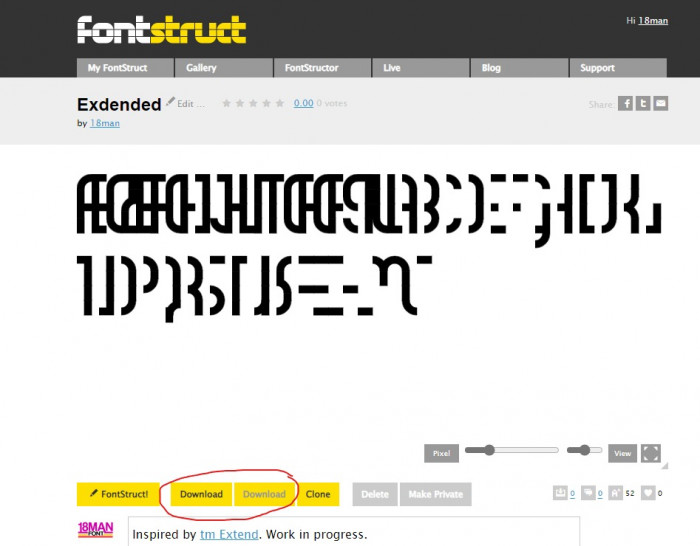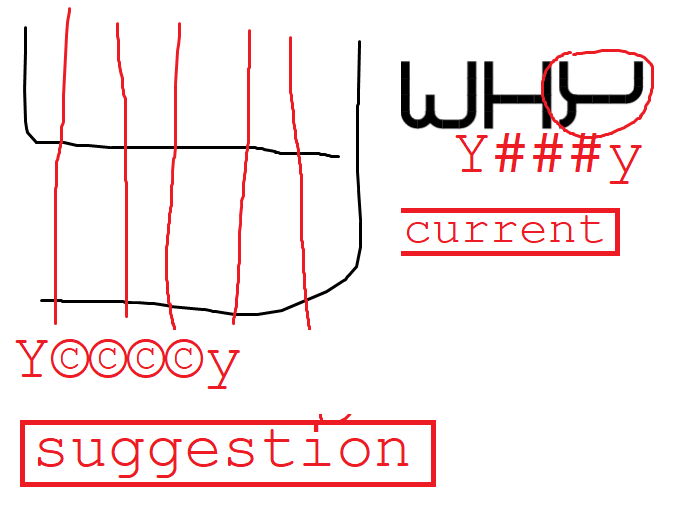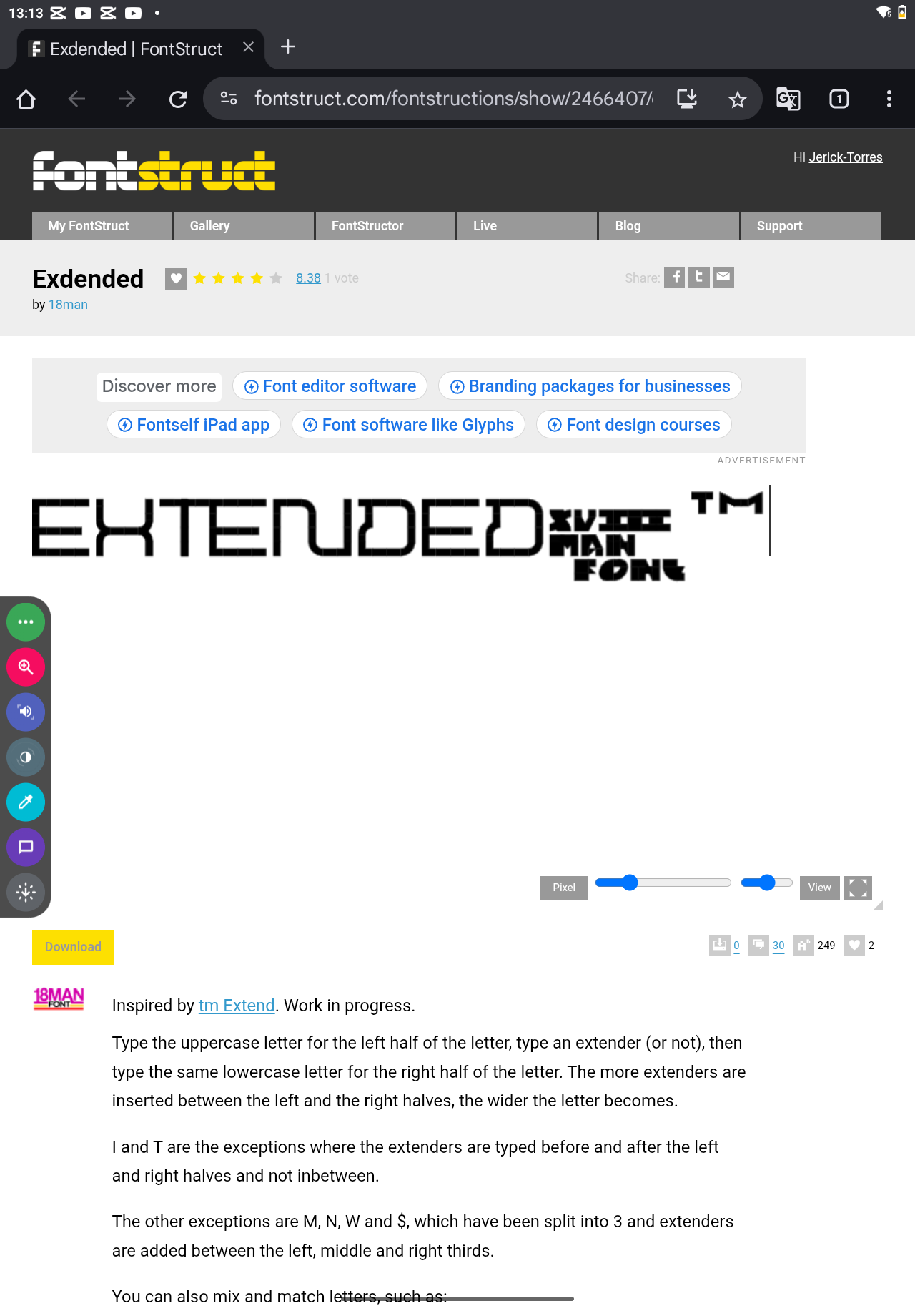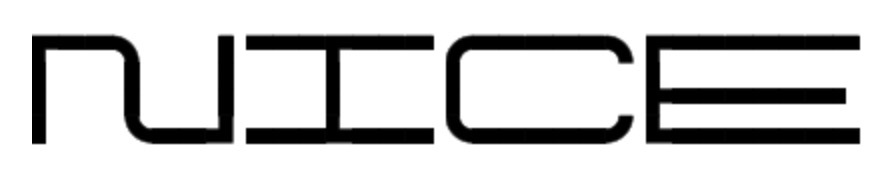
• Inspired by tm Extend. Work in progress.
Type the uppercase letter for the left half of the letter, type an extender (or not), then type the same lowercase letter for the right half of the letter. The more extenders are inserted between the left and the right halves, the wider the letter becomes.
I and T are the exceptions where the extenders are typed before and after the left and right halves and not inbetween.
The other exceptions are M, N, W and $, which have been split into 3 and extenders are added between the left, middle and right thirds.
You can also mix and match letters, such as:
F@a, U$v, O`o.
I had to use kerning to get the I and T to behave correctly.
Currency:
€¢, £¥, S§s.
Numbers:
0o, 1L , 2=, 3b, 4h, 5s, 6/, 7+, 8b, 9\.
Extend:
A@@a, Ä@@ä, B__b, C**c, Ç**ç, D**d, E__e, Ë__ë, Ə__ə, F@@f, G**g, H##h, *Ii* , J**j, IJ**ij, K##k, L$$l, M^%^m, N^&$n, Ñ^&$ñ, Ŋ^&$ŋ, O**o, Ö**ö, Ø**ø, P@@p, Q**q, R@@r, S__s, ^Tt^ , U$$u, Ü$$ü, V$$v, W$`$w, X##x, Y##y, Ÿ##ÿ, Z__z, 0**o, 1*L$ , 2__=, 3__b, 4##h, 5__s, 6__/, 7@@+, 8__b, 9__\, ?@@p, <__>¿||±, €**¢, £__¥, S_§_s.
tm Extend inspired me to make this font.
Oh nice idea indeed, in my early days of Fontstruct I was inspired to do a similar concept by this exact same clever piece of work thalamic did.
Here you can find mine, in case you wish to take a look: STF_WIDTH SHIFT
I added diacritics somehow.
The diacritics are as follows:
ÄÇËÑÖØÜŸ
I added another diacritic: Ŋ
I added a character from the IPA: Ə
Type ~¡§&NE_|$ to get this:
suggestion for a better Y
(bottom 2 lines is in "|" glyph)
S|||v for alt Y
A___E___ for uppercase Æ
no, A@@@E___ for uppercase Æ
O***E___ for uppercase Œ
by the way, what happened to the D it looks like an (7) merged with a ())
@digitalio-2 that's how I normally do my uppercase D's